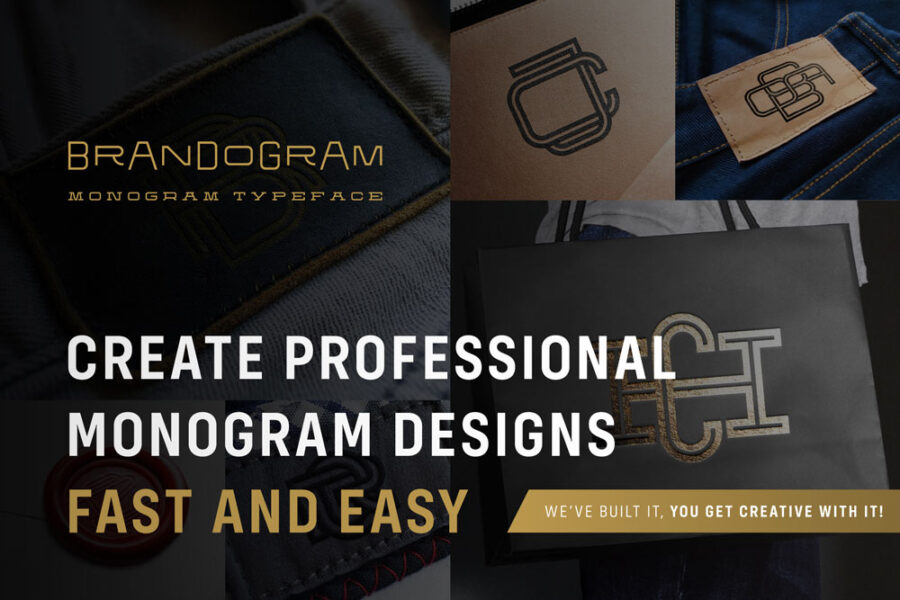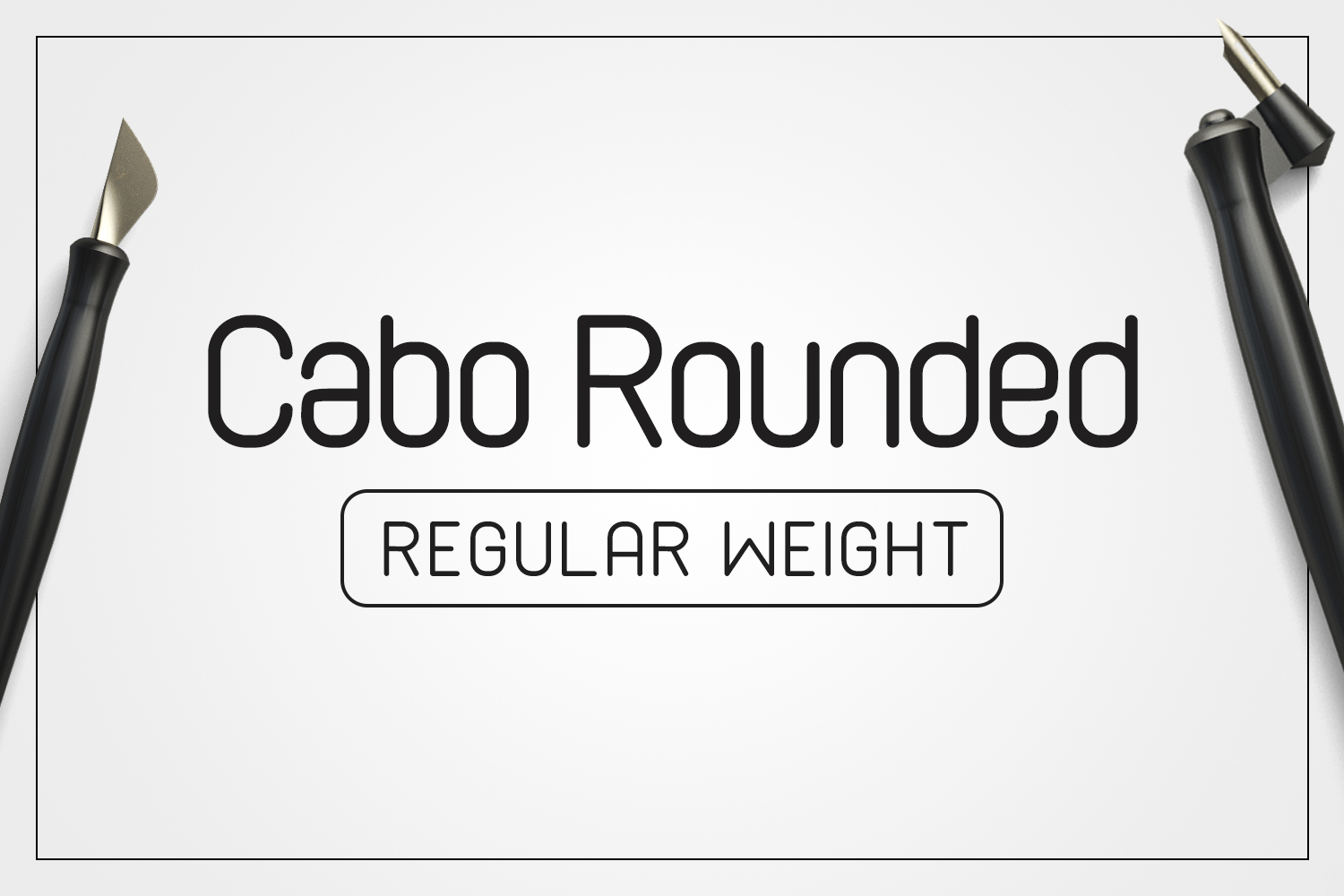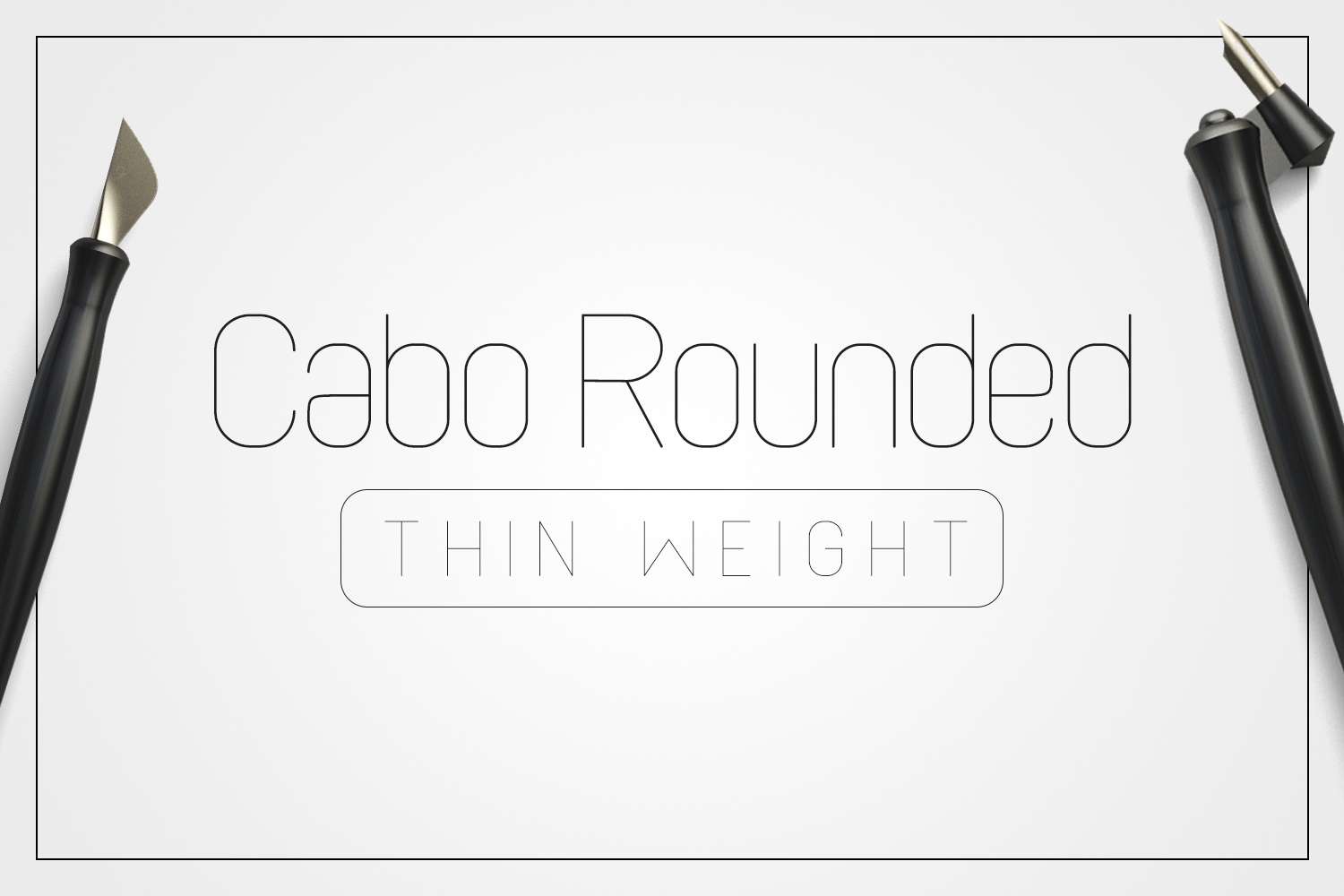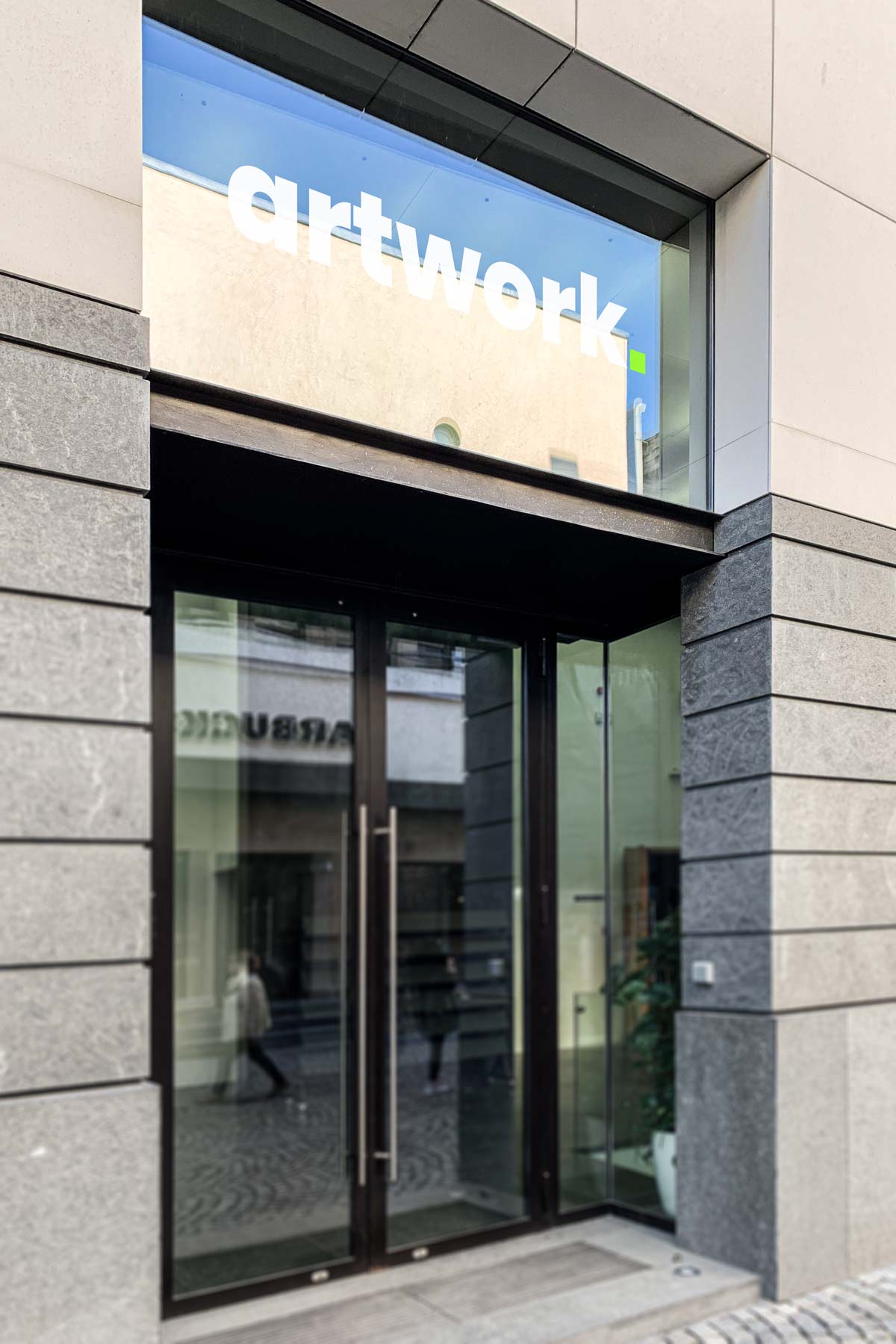
Our Top Fonts for Logo Design, Branding & Advertising
Besides mockups, templates and graphics, we also develop fonts. Most likely, one of the fonts we have developed has brought you to our website. One of the oldest and most popular usage of fonts in the digital era is branding and advertising. And in this article we have made a list with fonts for logo design, branding and advertising that we have created and developed so far. These work wonderfully for developing professional and unique logo designs, but also for developing advertising and marketing materials. Some of these fonts can be used as heading and headlines, some for text and some for both.
Let’s get this fonts for logo design, branding and advertising list started!
Cabo Rounded is our most popular paid typeface and is made out of 10 fonts – 5 weights, each with an italic version. These fonts can be used for mostly everything, from logo design to advertising and marketing materials. Thanks to it’s multiple weights, you can use it to create contrast in your design.
Headache is our most popular free font and it comes as a one weight font. It’s an all caps font with two styles for the letters, which are activated by writing uppercase or lowercase letters. This font is perfect for unique and professional logo designs, but can also be used for headings and headlines in marketing and advertising materials.
Brandogram serves both as a typeface but also as a tool for developing professional and balanced monogram designs. It comes in 7 different styles and has up to 24 alternates per letter. Basically each font from this typeface is a collection of over 10 fonts. It covers alternates for styles like: sans serif, slab serif, condensed letters, regular width letters, wide letters and in between widths. These can be combined to obtain crazy good monogram symbols.
Amneziak is an abstract and distinctive typeface that is perfect for abstract logo design and advertising materials. It’s an all caps typeface with different designs for each letter. They are activated by writing lowercase or uppercase letters. It’s also available in 5 styles, one solid and 4 stencil with different stroke weights. You can create incredible eye-catching designs like: posters, flyers, brochures, logos and more.
Cabo Slab is the slab serif version of Cabo Rounded. These work pretty well together and can be used as fonts for logo design, branding and advertising materials. Cabo Slab and Rounded work pretty well for text as well, being easy to read.
Zappat is a free font that comes with uppercase and condensed letters. It’s a one weight font and can be easily used for logo design and headings in branding & advertising designs.
Coastly is a handwritten font that works great for headings, slogans and quote designs. It’s also a good fit for playful and relaxed logo designs and branding materials. It’s a one weight font but it comes with full english alphabet and all latin accents. This font also includes 10 vector quotes designs that are perfect for printing on t-shirts, mugs, bags and similar items.
Sloppy Hand is another popular free font that our team has built. It can be used for playful and childish designs. Be it posters and flyers, logo designs and other branding materials.
More fonts for logo design & branding
The previously listed items are our most popular, bought and download fonts for logo design, branding and advertising. But we have made more. And below we will list more of fonts that we have developed over time. These are also a great fit for branding and advertising usage.